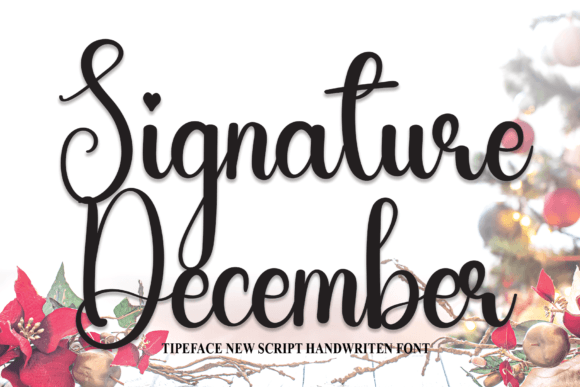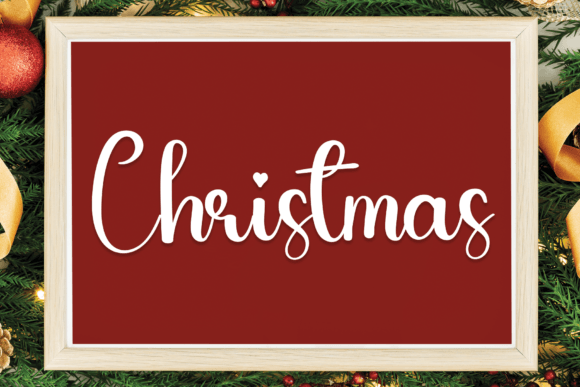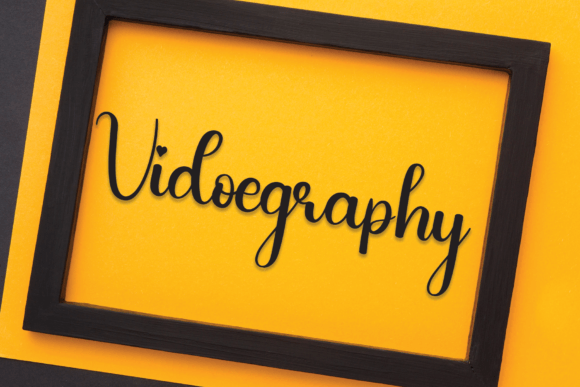
About Signature December Font
The Signature December font is a fun and friendly handwritten typeface that instantly adds warmth to any design. With its clean strokes and natural rhythm, it offers a casual, personalized feel that’s perfect for creative expression. Whether you’re designing a digital presentation or a handcrafted greeting card, Signature December brings charm and joy to your message.
Playful Style Meets Everyday Use
This font was created to blend a cheerful handwritten look with professional quality. Its smooth curves and consistent spacing ensure readability, while its playful vibe makes it visually engaging. You can use Signature December for both formal layouts with personality or informal, fun-focused projects.
Its versatility makes it suitable for:
DIY craft projects
Social media posts
Custom T-shirts or merchandise
Branding for handmade products
Personalized gift tags and invitations
Each letter feels spontaneous yet stable, making the font feel authentic without sacrificing legibility.
A Font That Fits Every Occasion
One of the most appealing aspects of the Signature December font is its adaptability. You can use it confidently across seasons and styles. From holiday greeting cards to minimalist websites, it fits effortlessly. It pairs nicely with sans-serif or display fonts, allowing you to create dynamic combinations that look modern and fresh.
Its handwritten feel makes it ideal for projects that require a personal touch. For example, use it to highlight quotes, headings, or names in a layout. Additionally, its readability ensures the message always shines through—whether in digital or print media.
Add Joy and Personality to Your Designs
If you’re looking for a handwritten font that’s cheerful, stylish, and versatile, the Signature December font is an excellent choice. It brings a handmade feel to your projects while staying clean and professional.